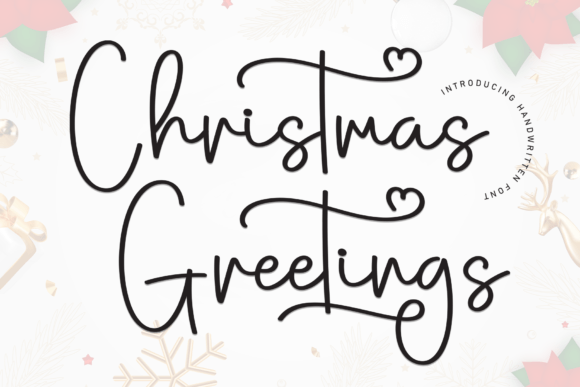
Introducing Christmas Greetings Font, a delightful and eternal handwritten font expertly crafted by andikastudio. With its captivating charm, this font is perfect for those seeking to create captivating logos, branding, and quotes.
The beauty of Christmas Greetings Font lies in its enchanting and timeless appeal. Each letter is infused with a unique and exquisite touch, adding a touch of magic to your designs. Whether you're designing a T-shirt, creating a stunning logo, or crafting meaningful quotes, this font has got you covered.
Immerse yourself in the world of creativity as you explore the endless possibilities offered by Christmas Greetings Font. Its script style adds a touch of elegance and sophistication to any project, making it a must-have for designers and enthusiasts alike.
With Christmas Greetings Font, your designs will come alive, effortlessly capturing the attention and hearts of your audience. It's not just a font; it's a masterpiece that adds a touch of individuality and creativity to your work.
Stand out from the crowd with this eye-catching font that will elevate your designs to new heights. Each stroke carries a sense of emotion and personality, making your creations truly memorable.
Whether you're a professional designer or a passionate hobbyist, Christmas Greetings Font is the perfect tool to bring your visions to life. Its versatility allows it to adapt to any project, making it suitable for T-shirt designs, branding, invitations, and so much more.
Don't settle for ordinary fonts when you can have the extraordinary. Christmas Greetings Font is the key to unlocking a world of captivating design possibilities. Let your imagination run wild and create stunning visuals that leave a lasting impression.